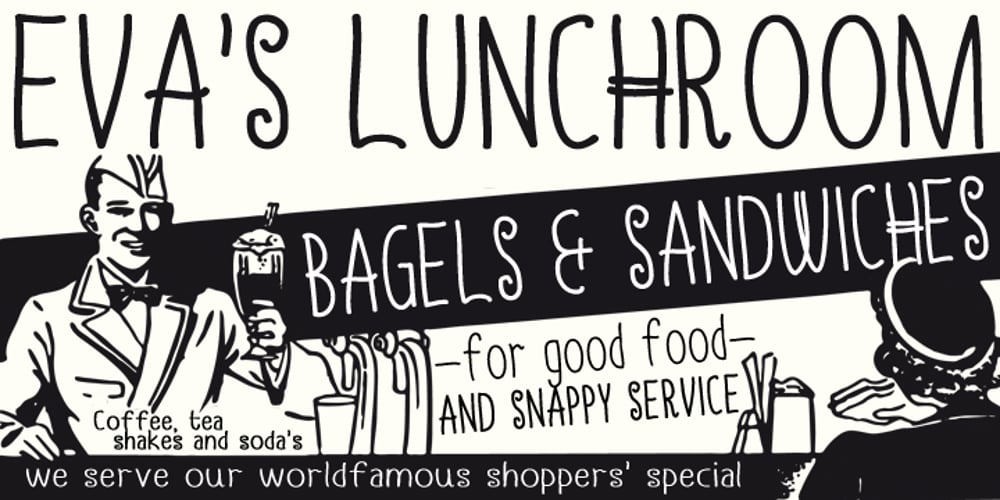
FM Eva Font Family was designed by published by FontMeister. FM Eva contains 1 styles and family package options. Eva is a pretty and legible font. Condensed and with a handwritten touch, Eva gives a warm and friendly feeling to your layout. It was totally inspired by hand-written chalkboards in coffeeshops around the world. You can use this font to create posters, greeting cards, scrapbooks, CD labels, T-shirts, coffee mugs, digital videos websites and banners.